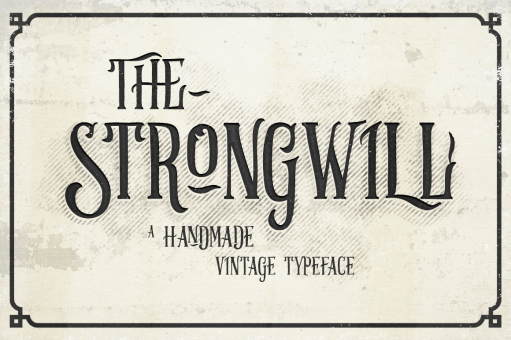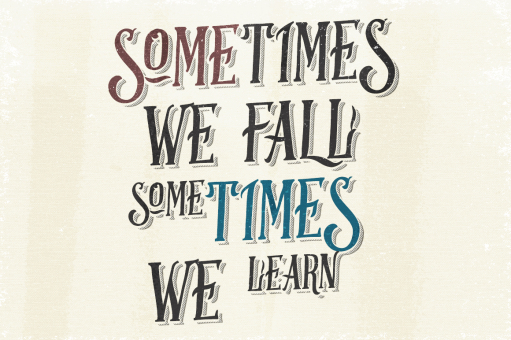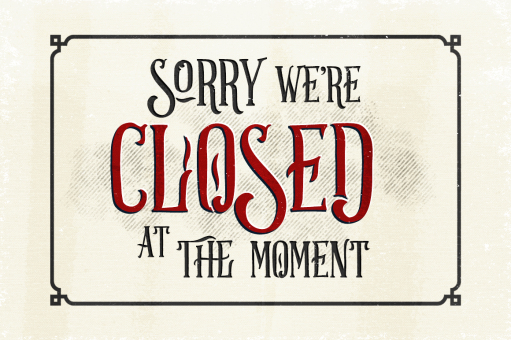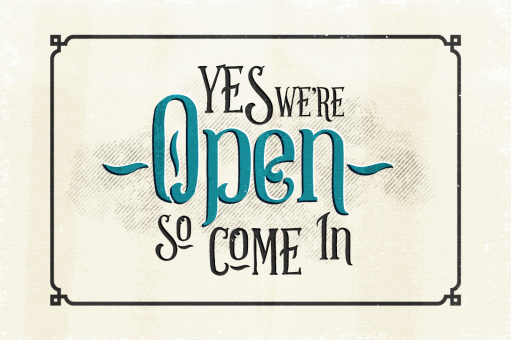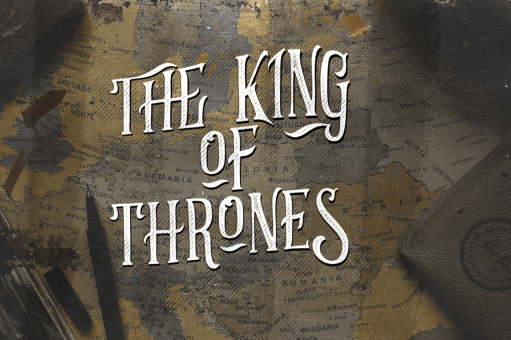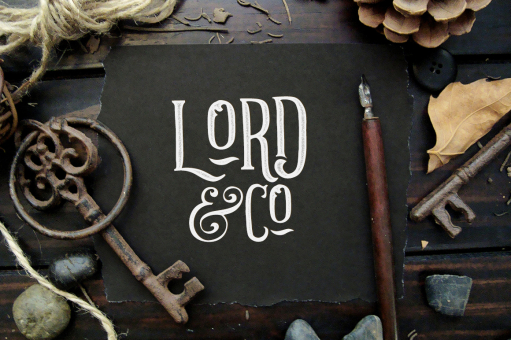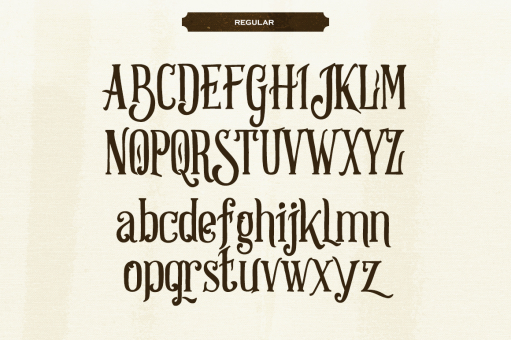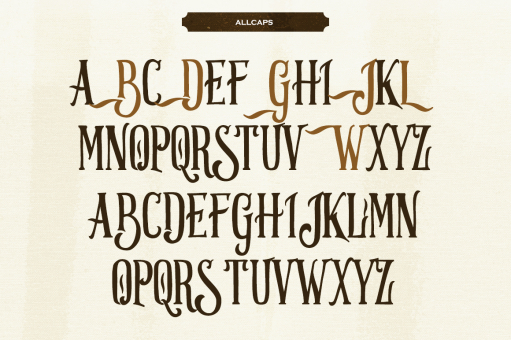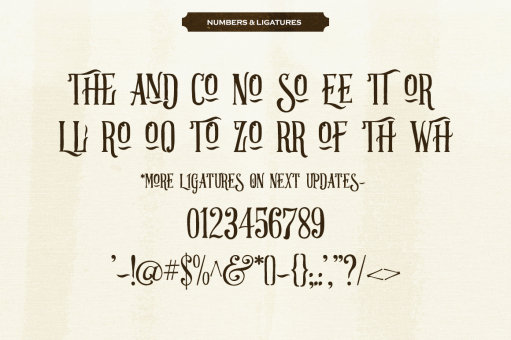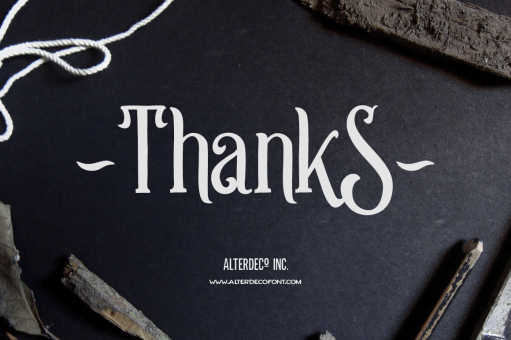
Strongwill Typeface
INTRODUCING Strongwill typeface
It's a handdrawn, handlettered vintage style typeface. It's a perfect font for your hand drawn logos and branding. the typeface family includes 2 different styles, regular & allcaps, you can play with it. also, includes some ligatures -*we will provide some more ligatures & glyphs in every updates.